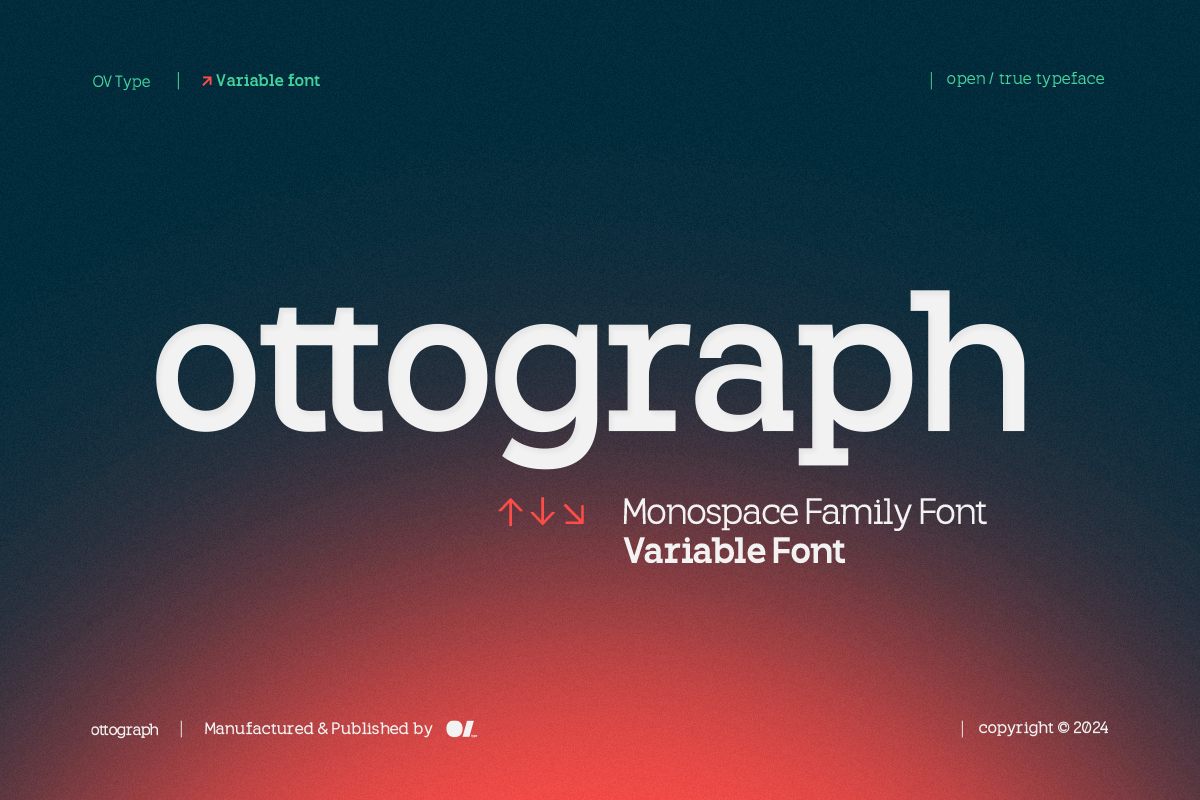
Strike the perfect balance between structure and creativity with Ottograph Duospace Font Family Free Download. This modern font family blends the clarity of monospaced type with the visual harmony of proportional spacing, making it ideal for tech interfaces, coding visuals, branding, editorial layouts, and minimalist design systems.
Ottograph offers a clean, geometric style with subtle quirks that make it both functional and distinctive. The duospace approach allows for improved readability without sacrificing the grid-based rhythm designers love in monospaced fonts. Complete with multiple weights, uppercase and lowercase letters, numbers, and punctuation, this family is a powerful tool for testing out complex design systems and visual identities.